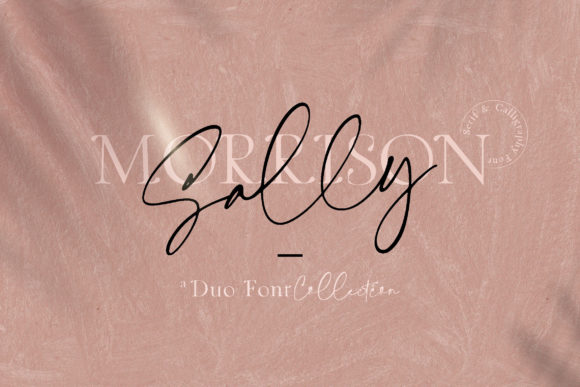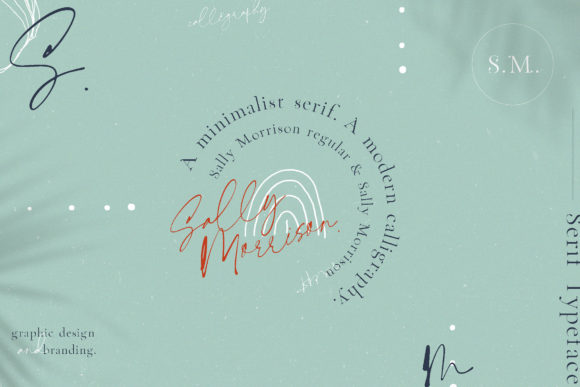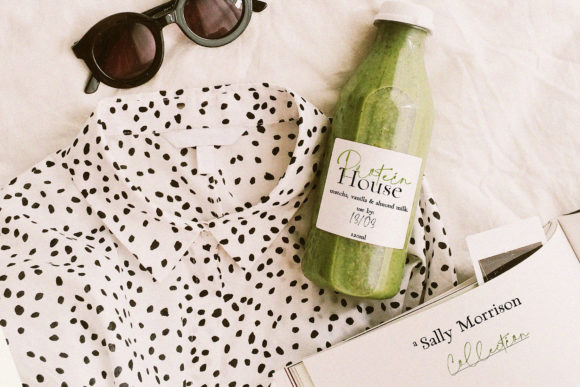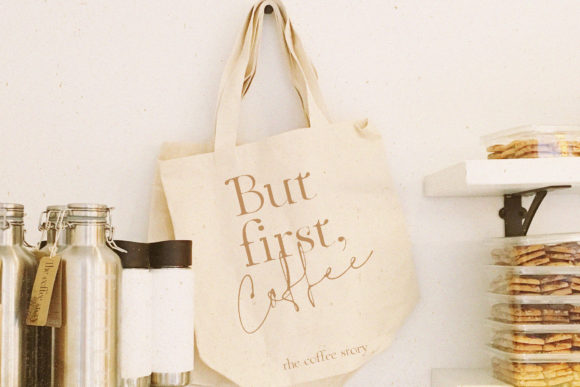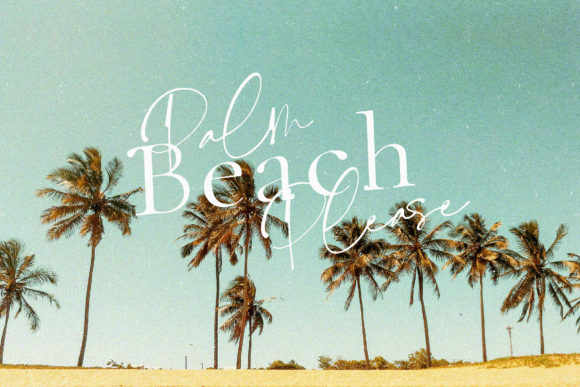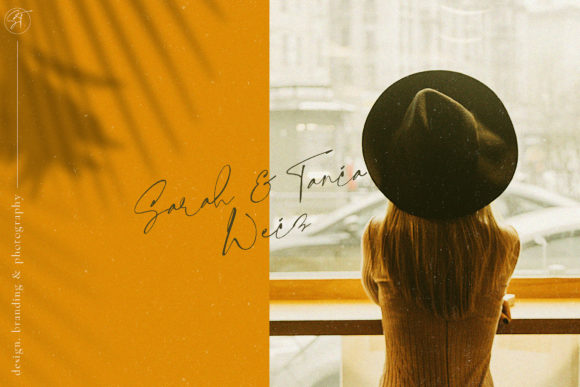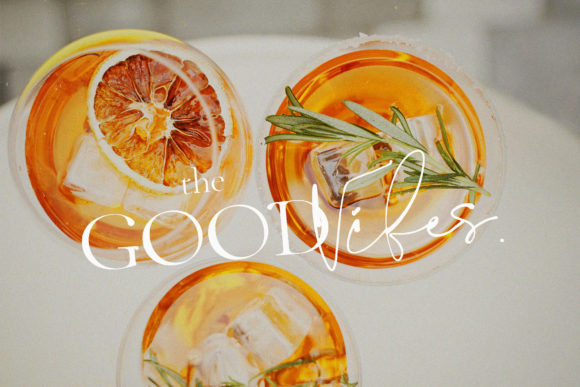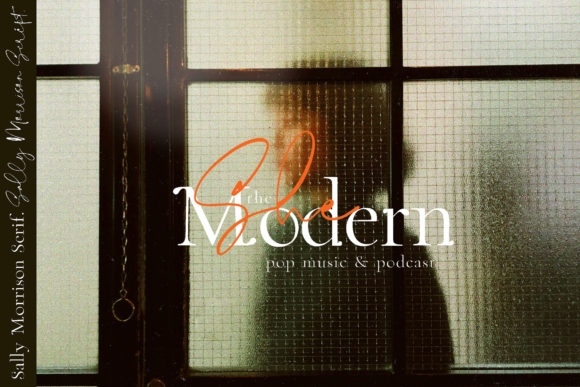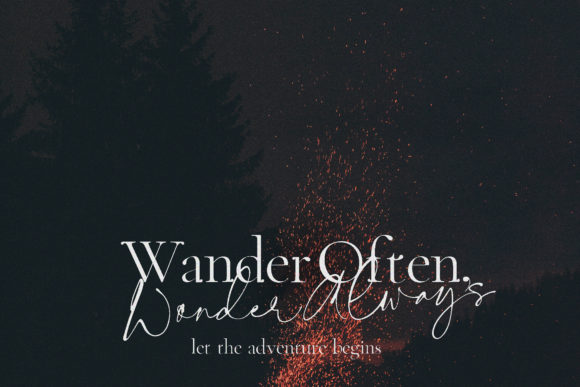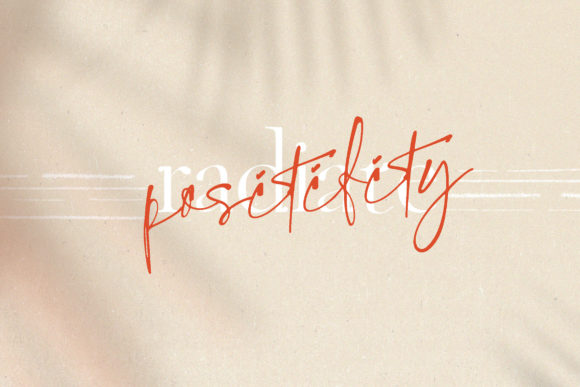
Sally Morrison Duo Font
Sally Morrison duo is a match made in heaven, the swashes of the script perfectly complements the serif’s style. Combining these two fonts on your next design will give your next design a modern and sophisticated feel.
This versatility means that this font can be used in a wide variety of applications from branding to stationery – the only limit is your imagination!